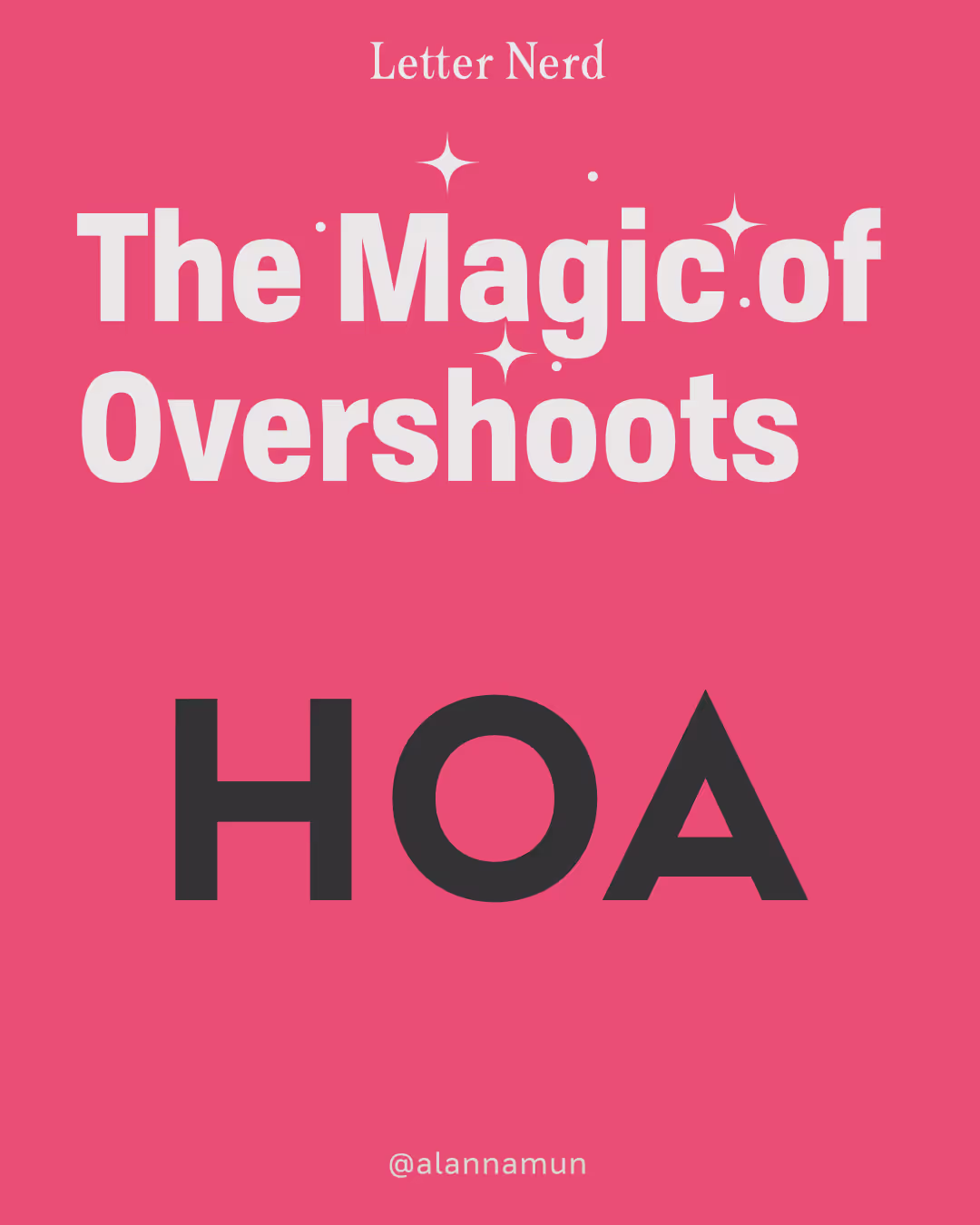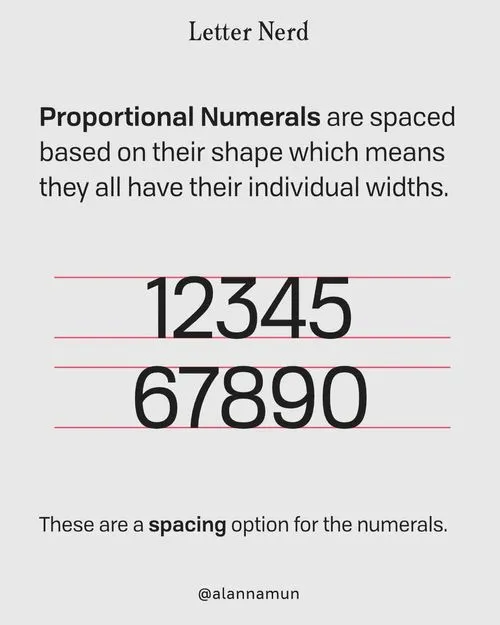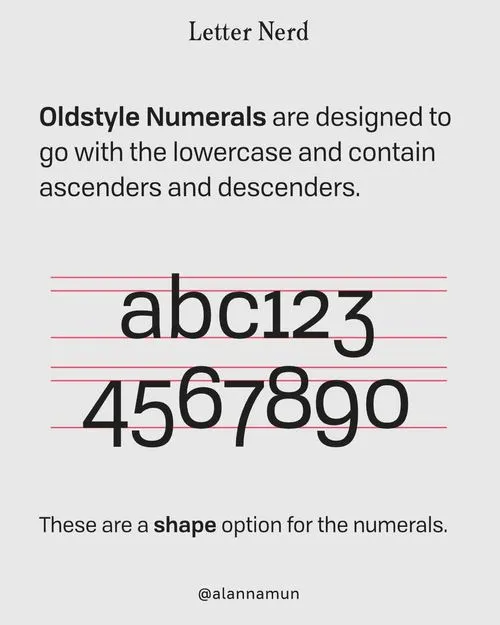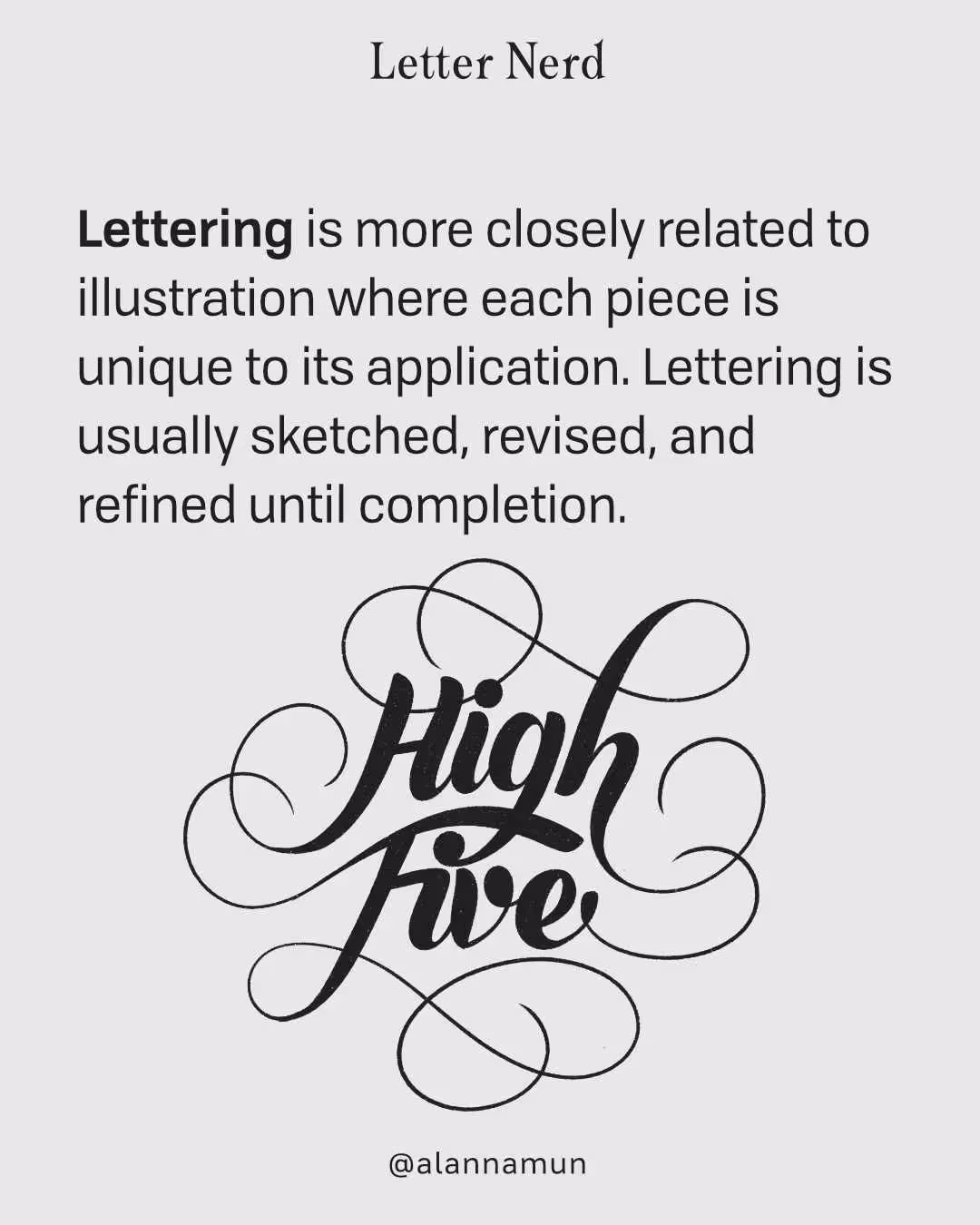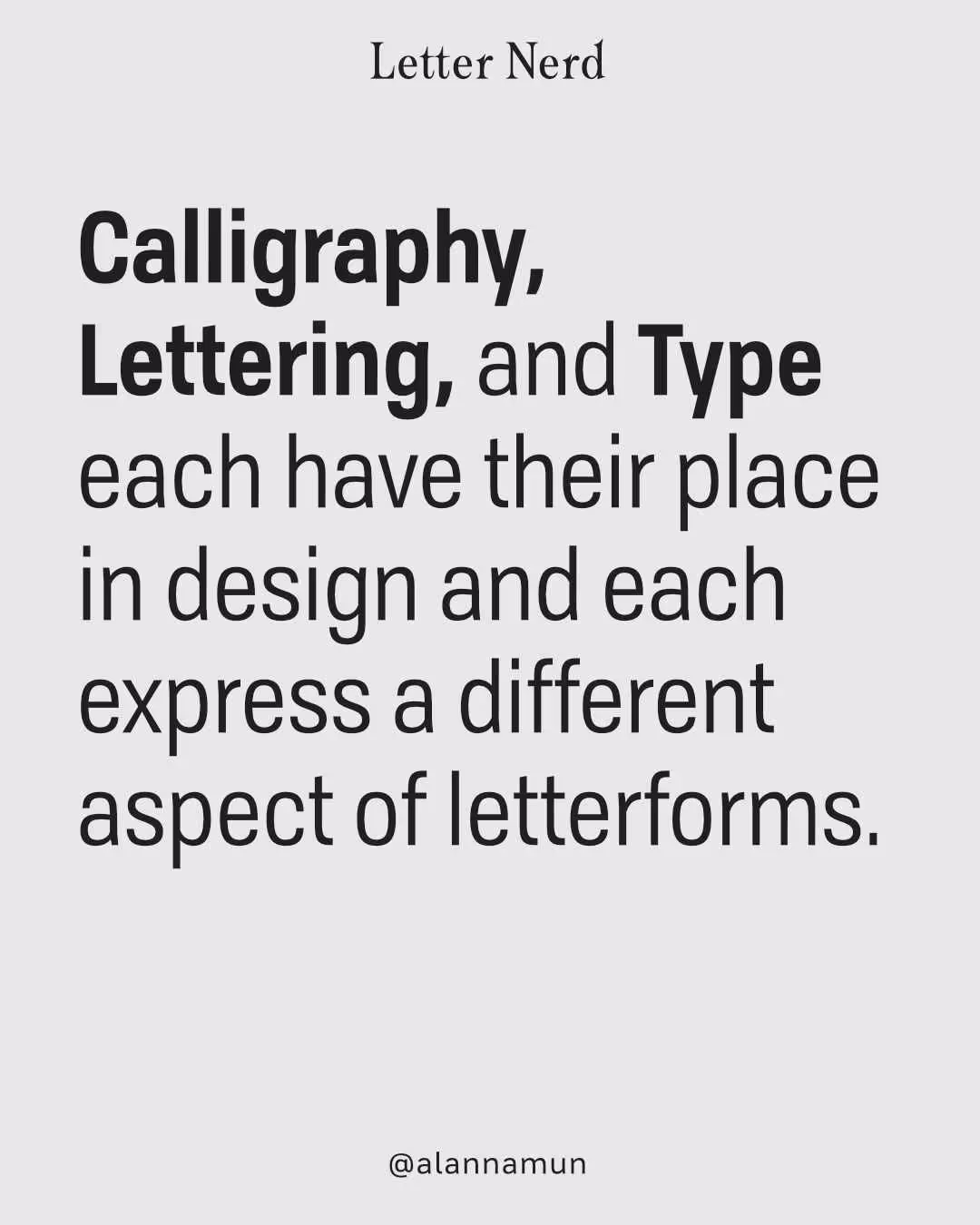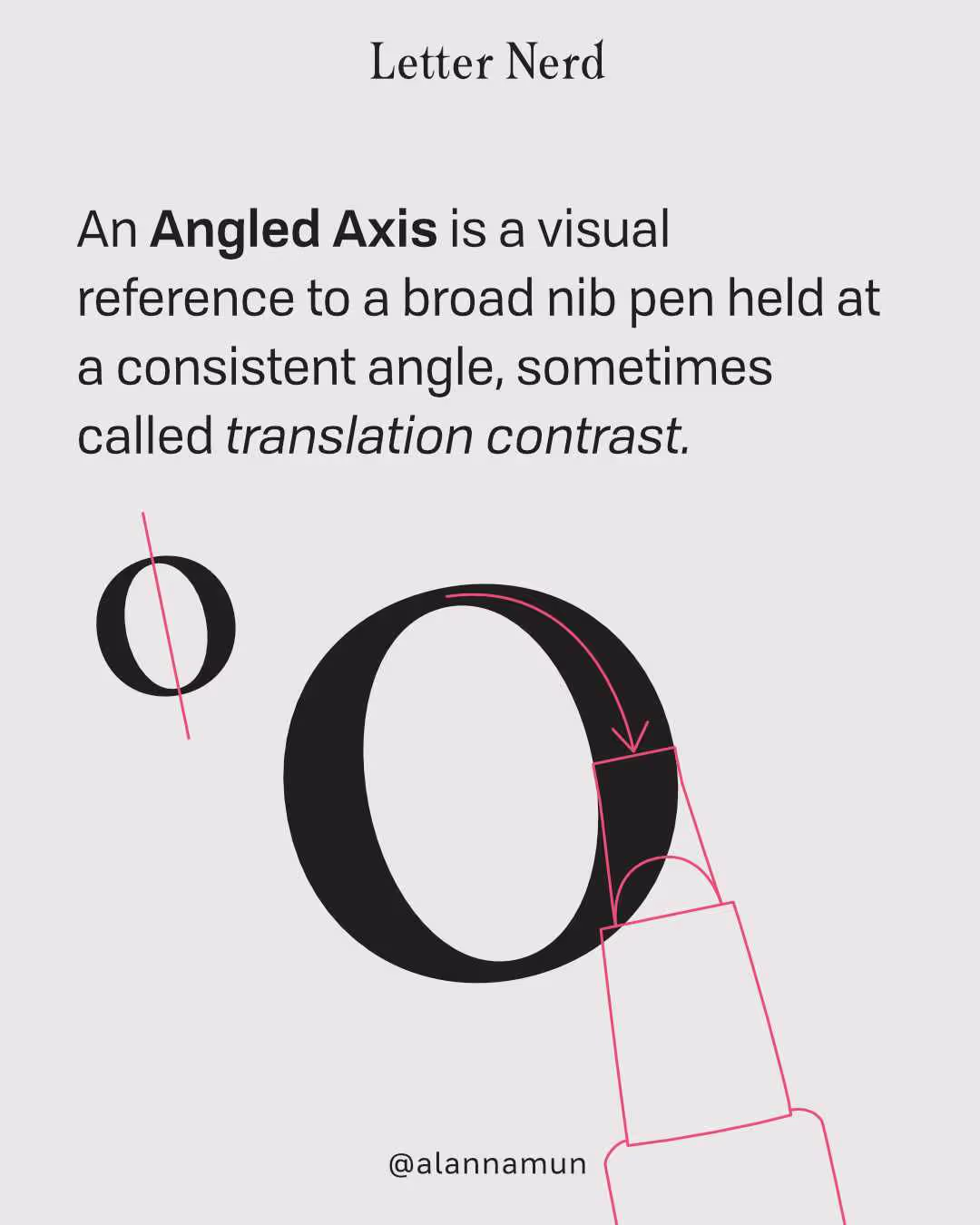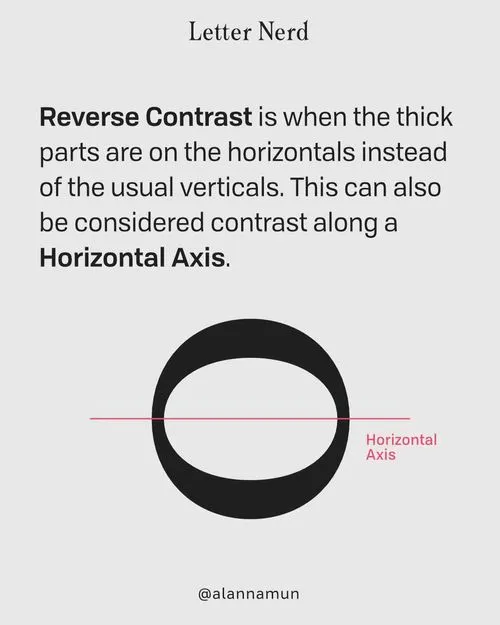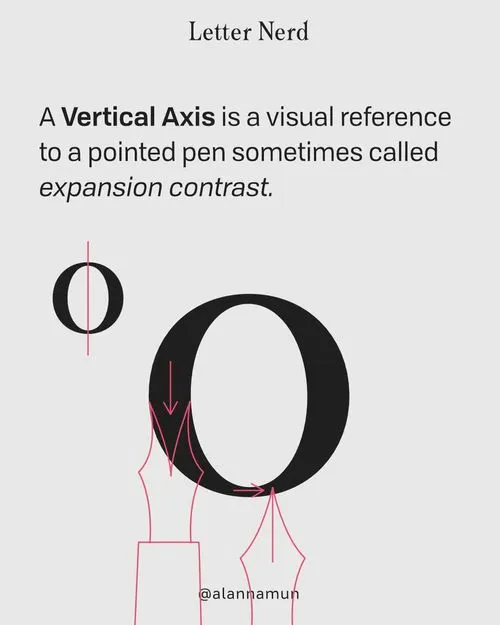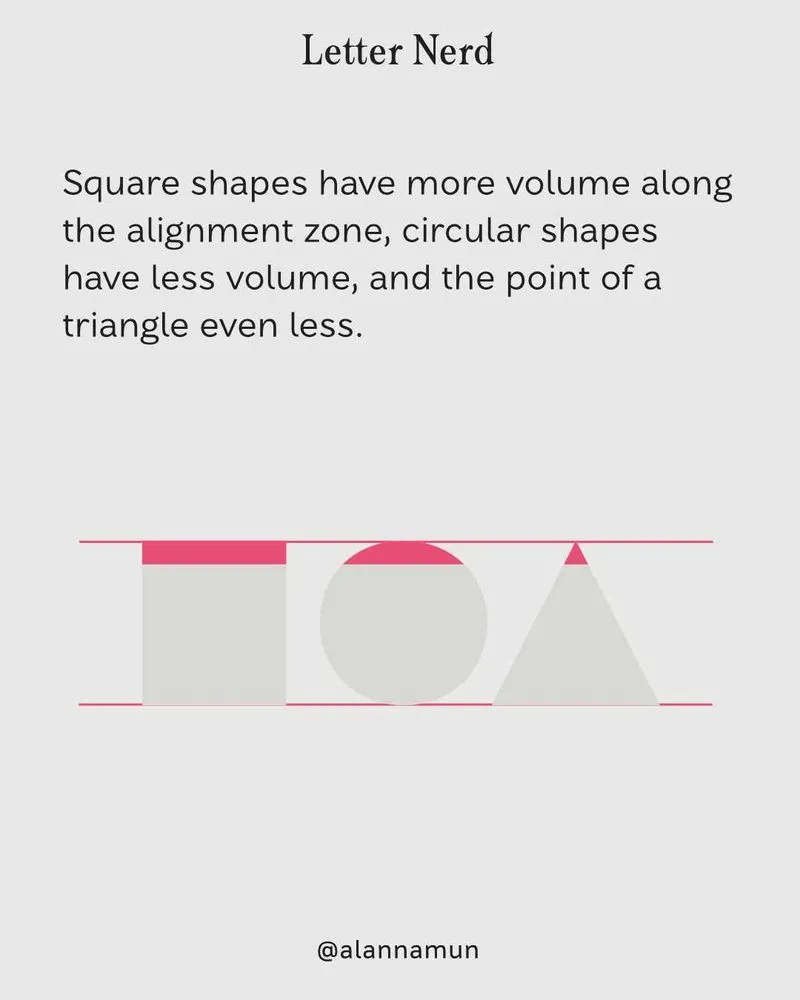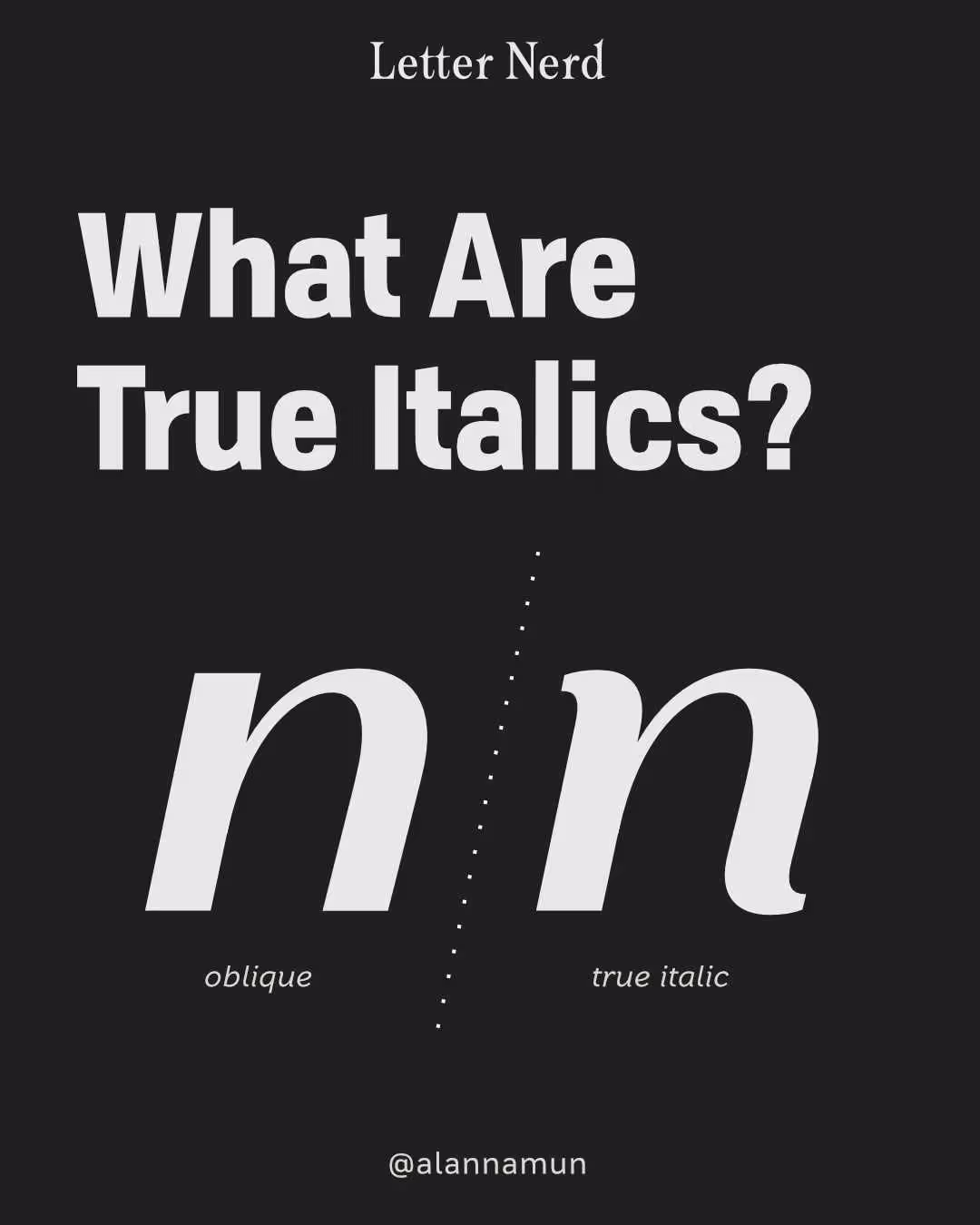
Letter Nerd
It is my ultimate evil plan to make everyone a letter nerd muwahahaha! But seriously, letters are pretty cool and I want to tell you all about them. I’m calling this education series “Letter Nerd” and so far I have a newsletter, book, and quick lessons for you to explore.
Quick Lessons
What are true italics
True italics actually have nothing to do with the truth. Perhaps they are called “true” italics because they are more closely related to historical italic styles.
The first italics were not created based on the roman designs like they are today. Instead, they were created independently and were based on informal cursive writing.
This gave italic typefaces properties found in cursive writing such as a slant, narrower proportions, and structural differences.
If the italic style is only slanted, we call that oblique. When we take that slanted style and add elements from cursive writing, we call it a true italic.
True or oblique, italics should be used to create emphasis when set in roman text, and they accomplish this through creating a particular sparkle with the letterforms. Some would argue that true italics pull off this sparkle better than obliques because of their cursive-inspired features.
The visual features of true italics help them stand out and create a special sparkle in the text.
Size Specific Fonts. Big and Small
Some fonts work better at large sizes and some are better at small sizes, but it's not a mystery why.
Type designers know what adjustments need to be made to make letters more readable and legible at smaller sizes or more refined and elegant at larger sizes.
In general, text-specific styles are wider, bolder, less contrasting, have more open apertures, and use structures that differentiate them from other similar letters.
Text made for very large sizes might also have adjustments, usually an increase in contrast and decrease in spacing (or tracking).
Changes to the shapes and spacing can help the letters perform better at different sizes.
The magic of overshoots.
Overshoots have to do with the way our eyes and brain work together to perceive alignment. Along with where the shape ends, the volume of the shape along the alignment line plays a part in whether we see it as aligned.
Square shapes have more volume along the alignment zone, circular shapes have less volume, and the point of a triangle even less.
We can trick our eyes into thinking that these shapes look aligned by overshooting the alignment line with our circular and triangular end points. We can also refer to this as making optical adjustments.
Most people don't consciously realize these subtle differences but type designers spend a lot of time making optical adjustments like these to the letters and spaces in between them.
The magic of overshoots is that you don't notice them when they are done well—the letterforms just look aligned.
How to use all those numeral sets.
Lining numerals are designed to go with the uppercase and are generally the size of the cap height. These are a shape option for the numerals.
Old style numerals are designed to go with the lowercase and contain ascenders and descenders. These are a shape option for the numerals.
Proportional numerals are spaced based on their shape, which means they all have their individual widths. These are a spacing option for the numerals.
Tabular numerals are spaced to line up across columns and end up each taking up the same width regardless of their shape. These are a spacing option for the numerals.
The numeral set you use is often categorized as two of these options—one shape and one spacing. Examples of lining proportional, lining tabular, old style proportional, and old style tabular.
Calligraphy, Lettering, or Type?
Calligraphy is a practiced for of writing that uses and instrument like a pen or brush. it it completes in one pass without editing the letters.
Lettering is more closely related to illustration where each piece is unique to its application. Lettering is usually sketched, revised, and refined until completion.
Type requires a holistic approach to drawing each letterform so that they can be arranged in any order. There is a focus on refining a collections of compatible shapes.
Calligraphy, lettering, and type each have their place in design and each express a different aspect of letterforms.
What is letter contrast?
Calligraphy, Lettering, or Type?
High contrast is when there is a large difference between the thick and thin and low contrast is when it appears more monoline.
An angled axis is a visual reference to a broad nib pen held at a consistent angle, sometimes called translation contrast.
A vertical axis is a visual reference to a pointed pen sometimes called expansion contrast.
Reverse contrast is when the thick parts are on the horizontals instead of the usual verticals. This can also be considered contrast along the horizontal axis.
How to spot good spacing & kerning.
Spacing is the amount of space between the letters. The default spacing is set by the type designer.
Kerning is an exception to this default spacing between two specific characters.
The space between the letters are as much a part of the letters as the drawings themselves. A well-spaced typeface is a sign of quality.
Use the Elevator test as a quick way to check a typeface's spacing and kerning quality.
Great kerning is essential in digital projects as there is no way to adjust the kerning in live text. If you feel confident in your abilities, you can adjust kerning in print projects when necessary.